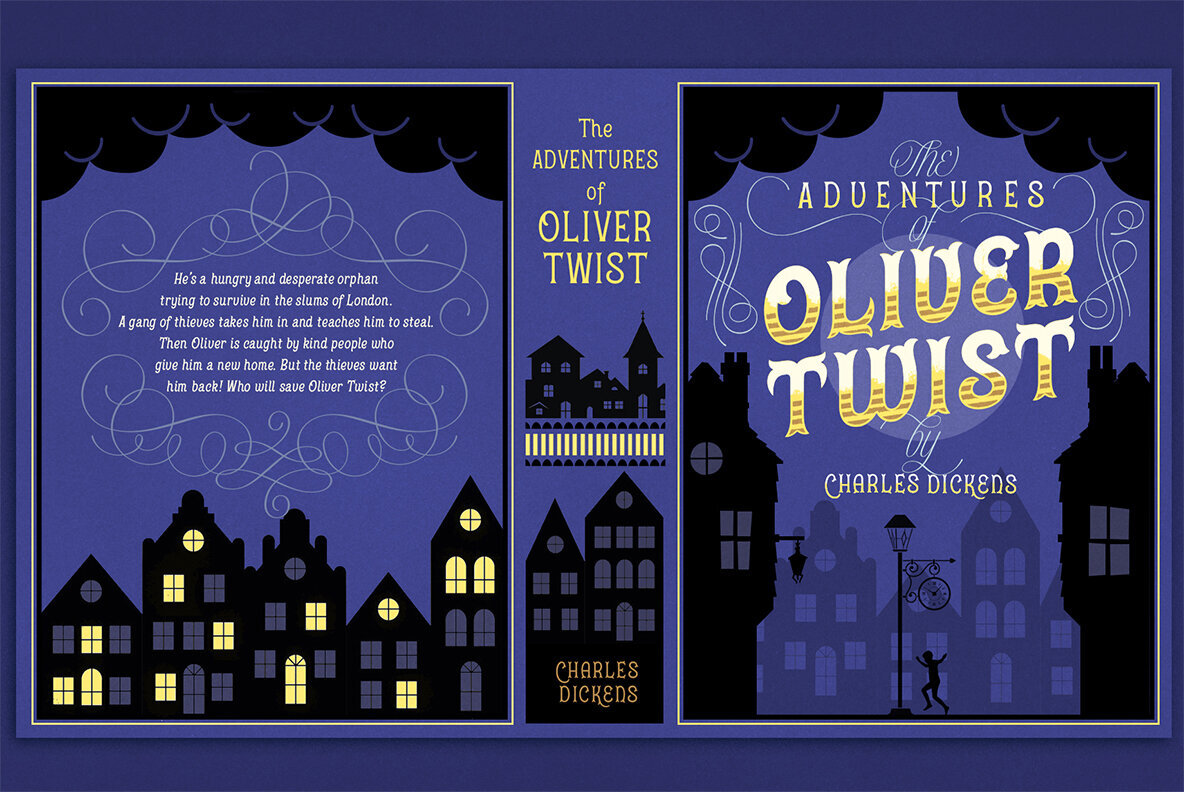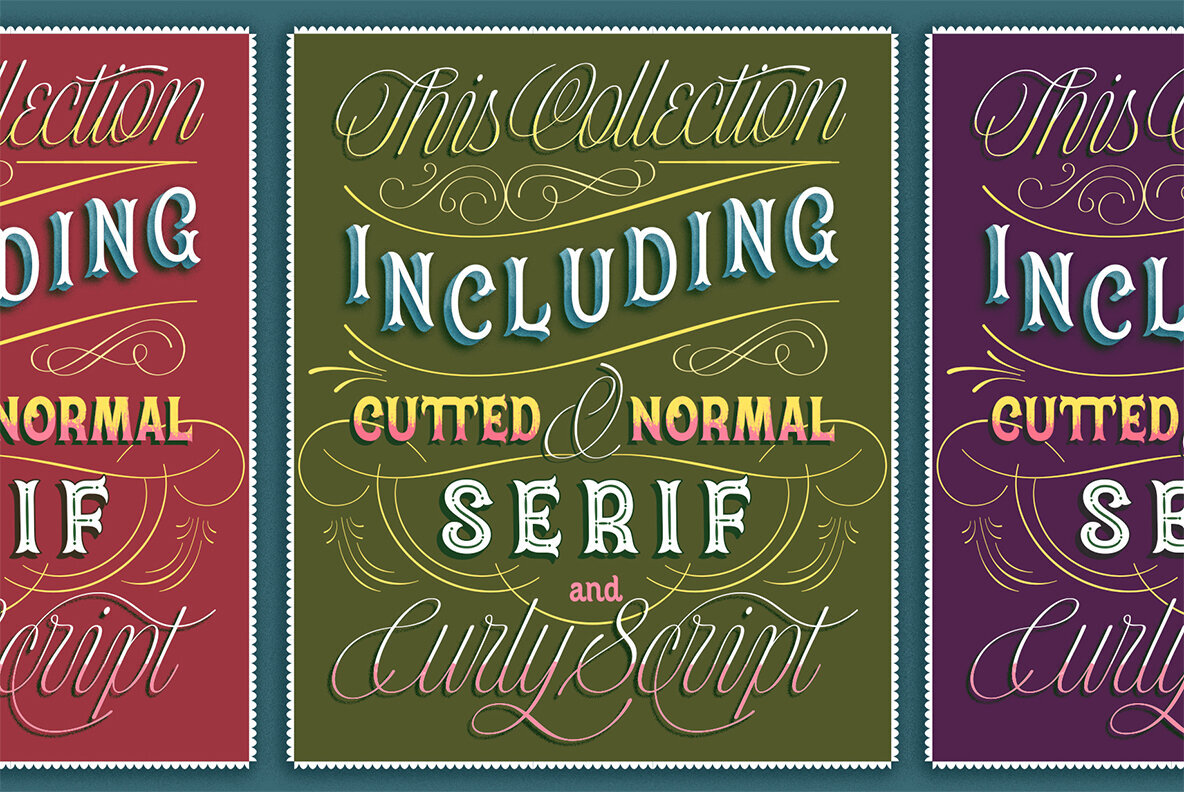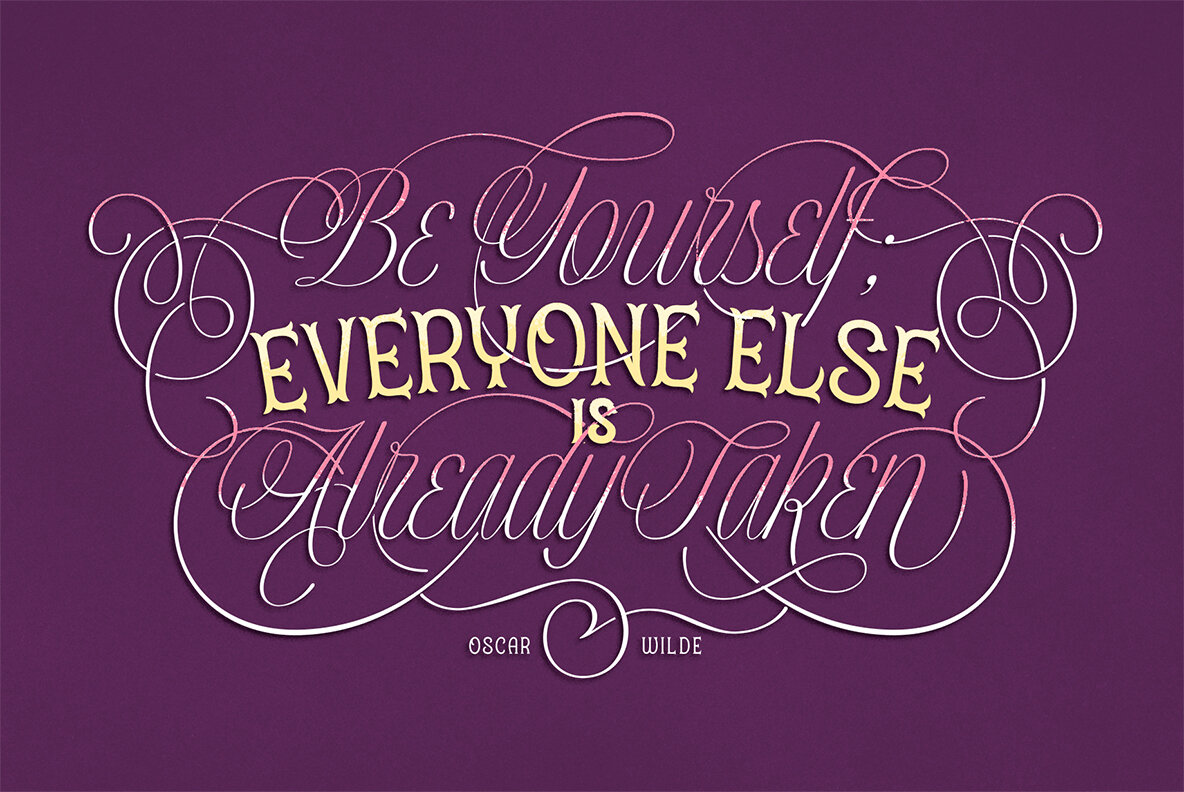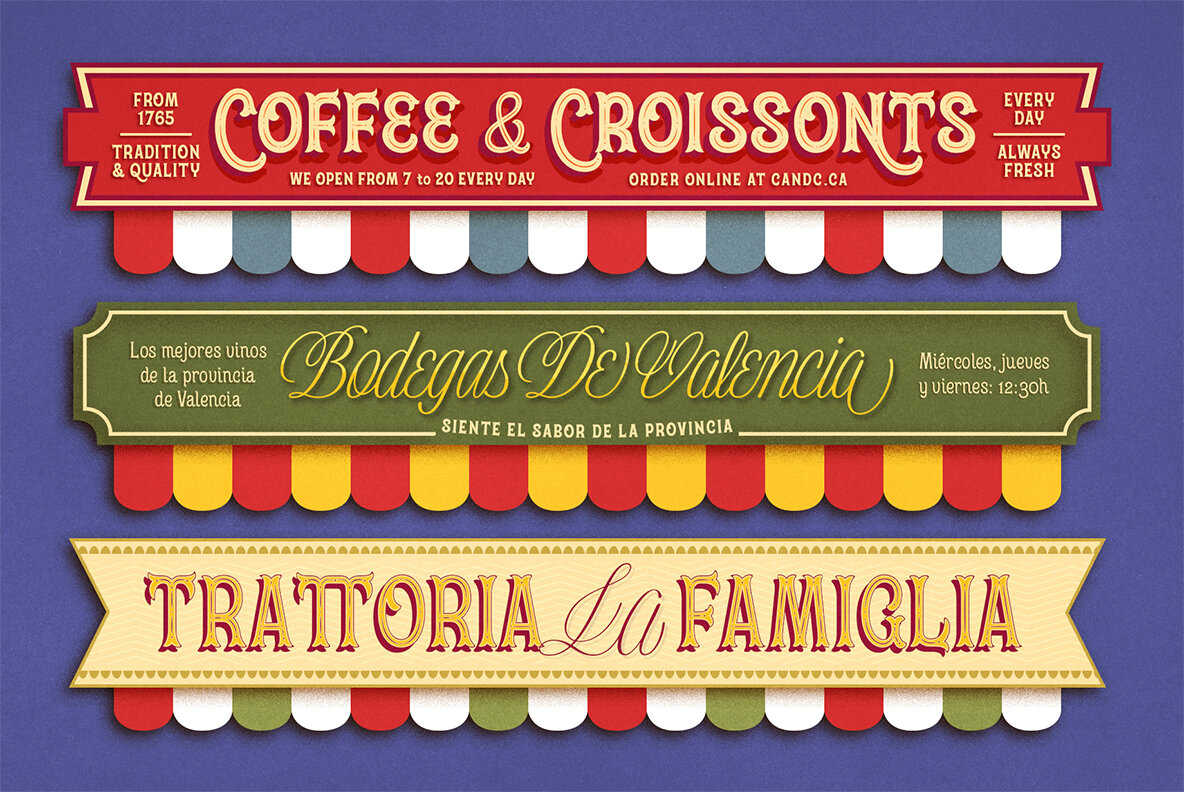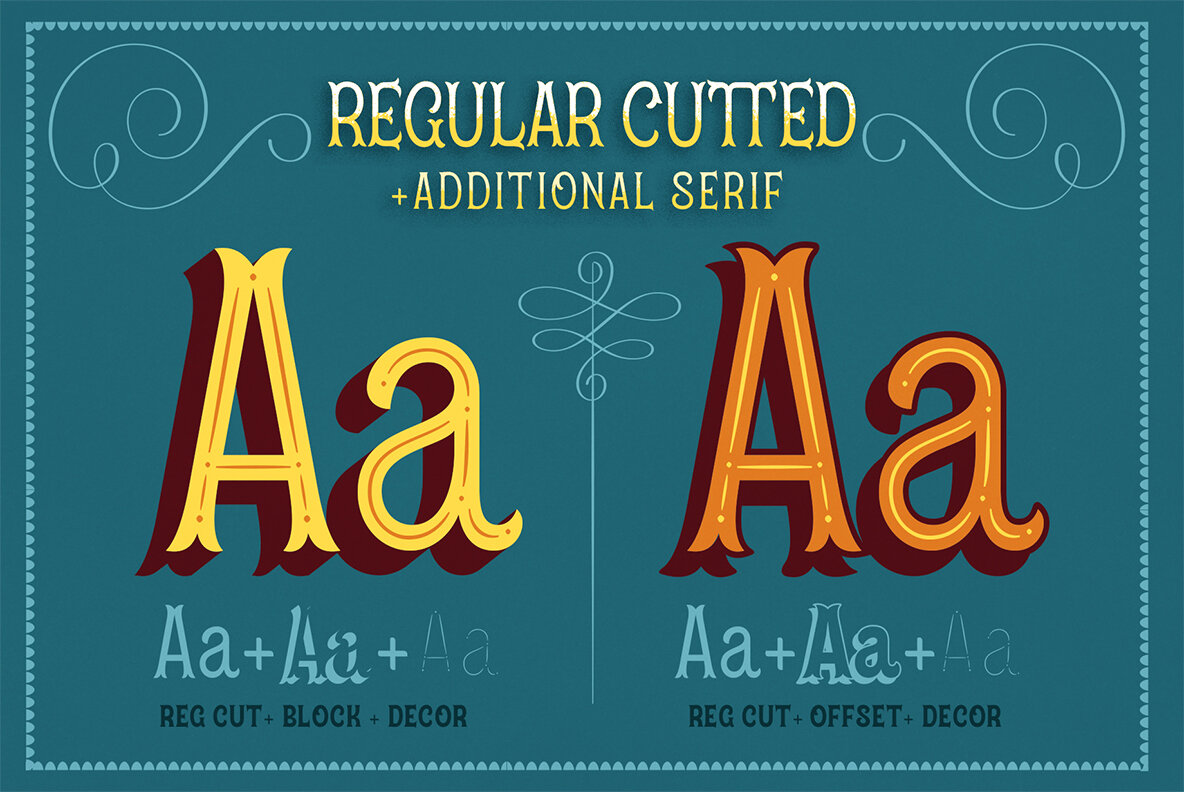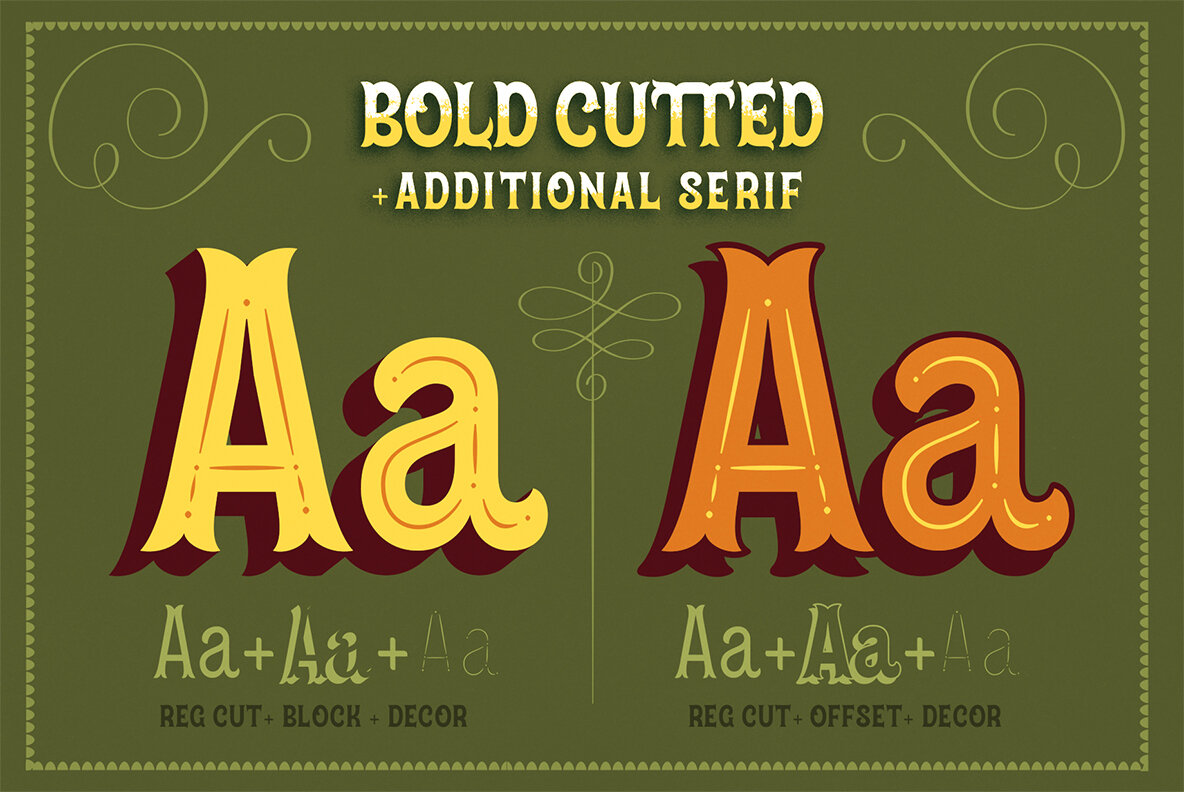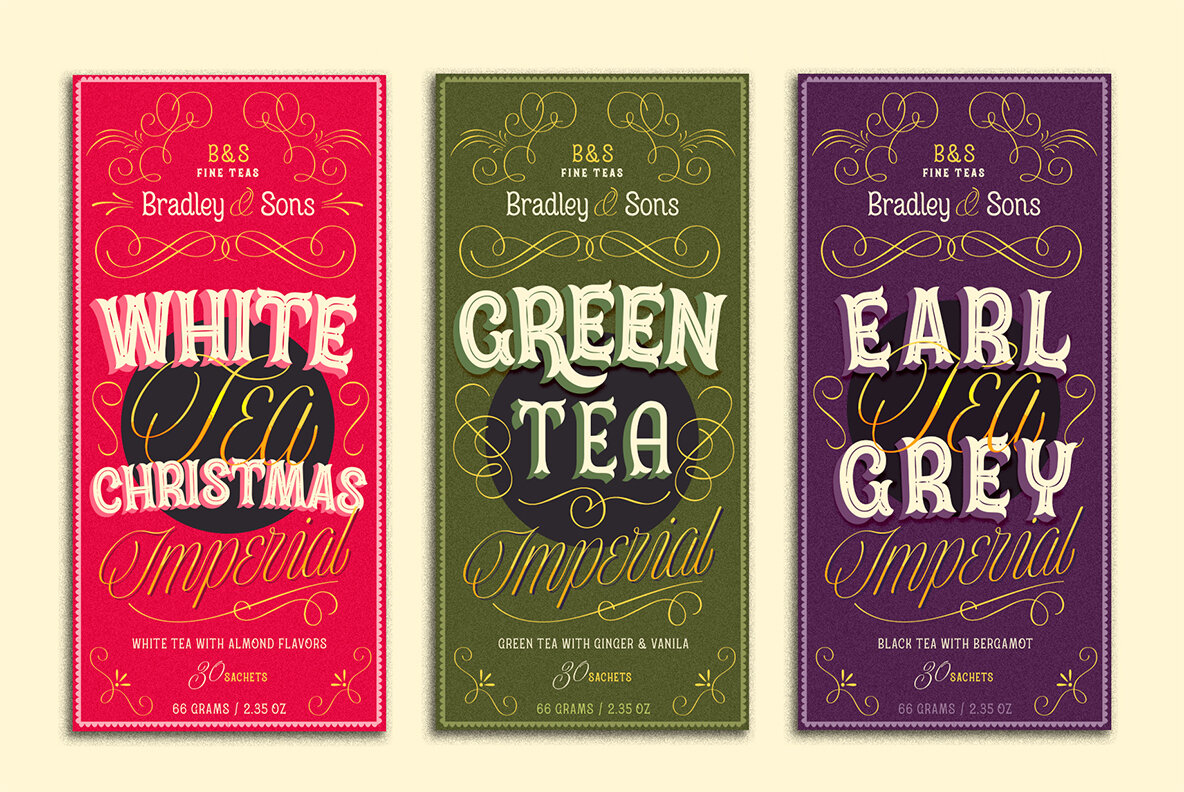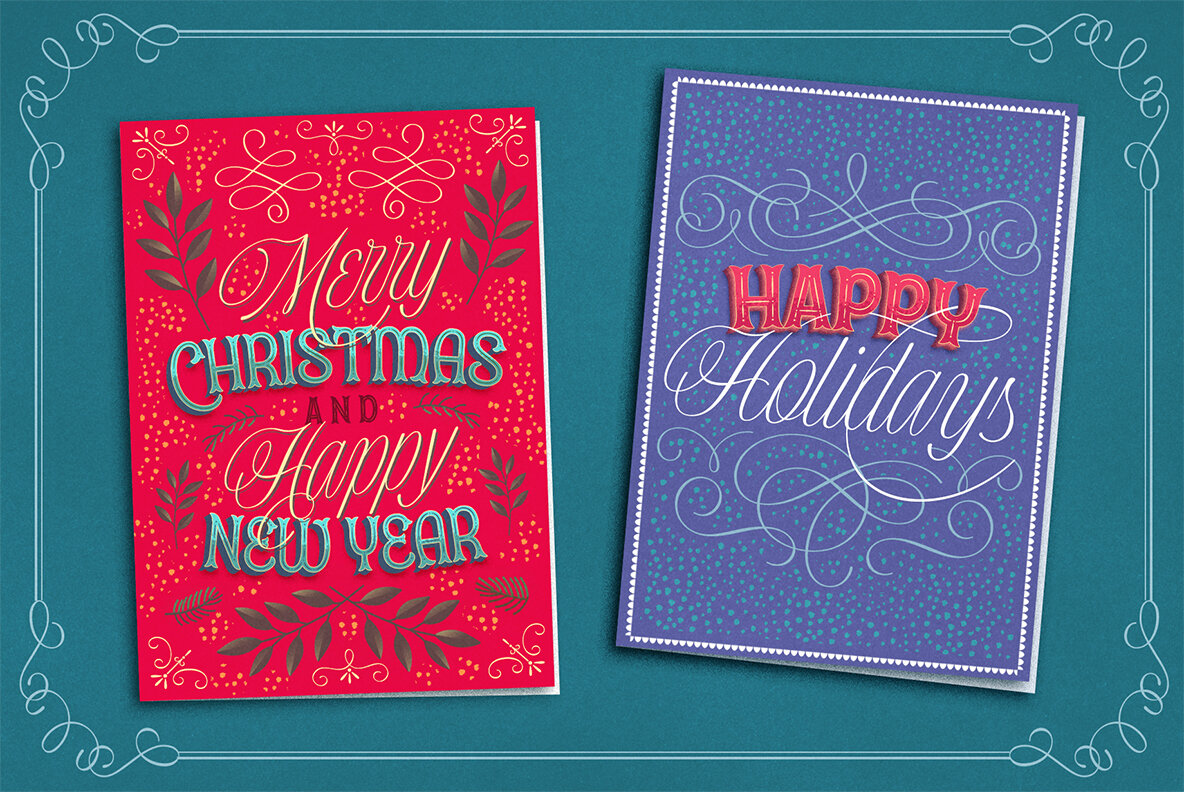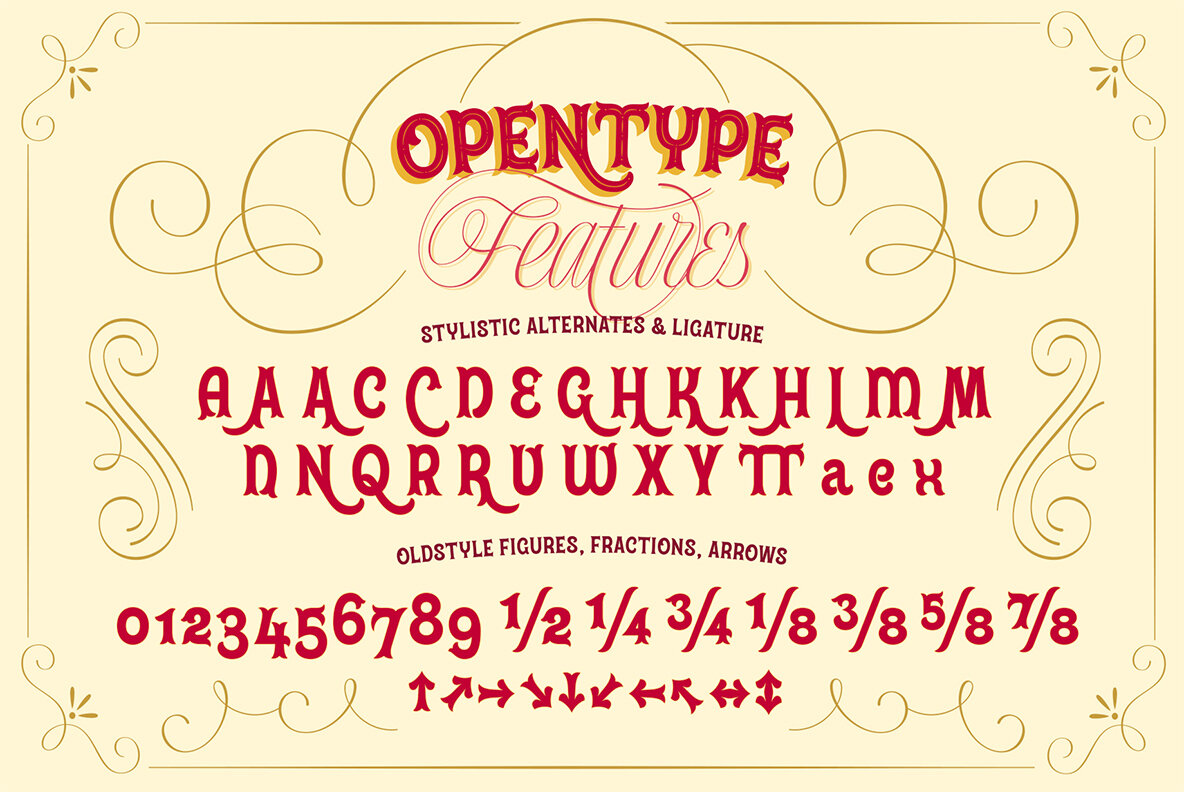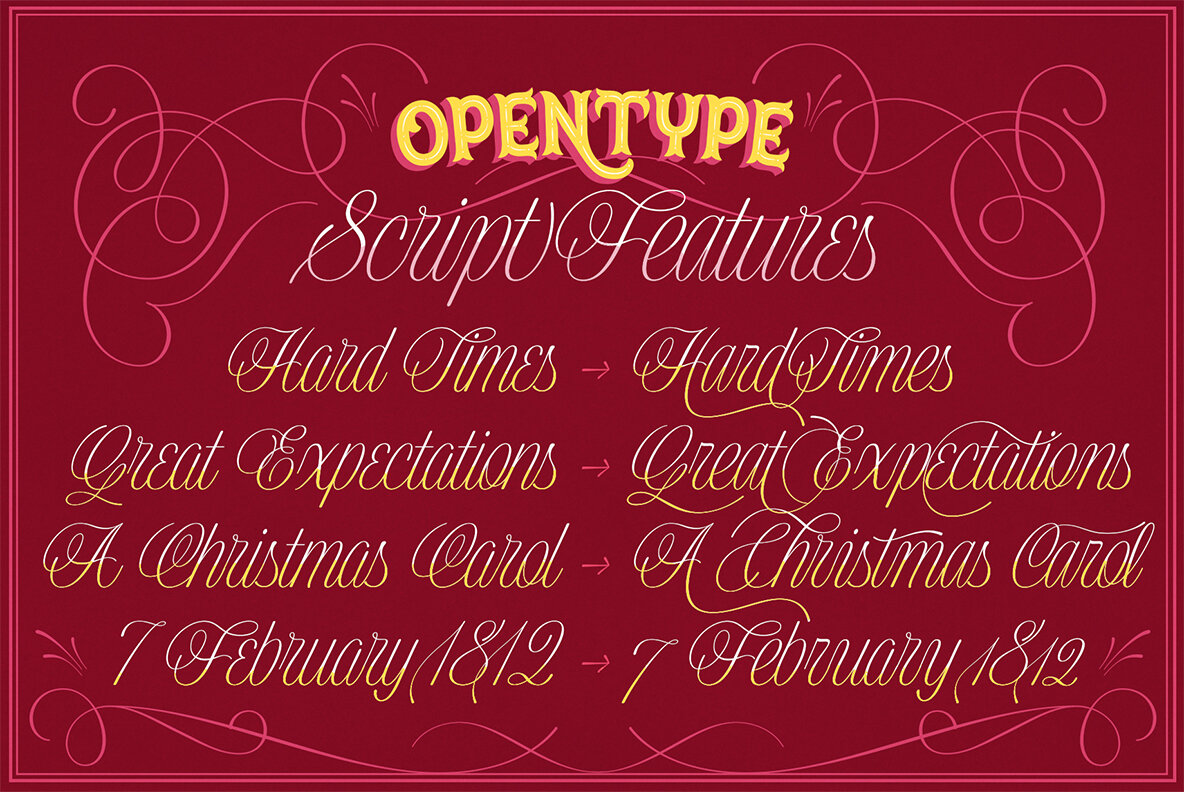
The Dickenss Fairytale Font
The Dickens's Fairytale – it's a new chapter of VVDS products - The collections of fancy display fonts which will include many typefaces that will be perfectly combined not only with each other, but also with other collections of this series. As a result, you will get a large collection of beautiful fonts and graphics that will help you create beautiful designs without having to look for anything else. All these collections are inspired by classic books design of XIX and XX centuries like Franklin's Library Classic Collection and modern publishing houses like Barnes & Nobel. This collection is the first one and including 12 font files. The Serif presented in two styles - cutted and normal. The cutted style has two weights - Regular and Bold. Also, there are two types of shadows - block and offset. Plus decor for cutted serif. The cherry on top - curly calligraphic Script with Swirl calligraphy elements for decoration. The both of types has many Open Type Features as Oldstyle Figures, Fractions, Stylistic Alternates and ending lowercase letters for script.